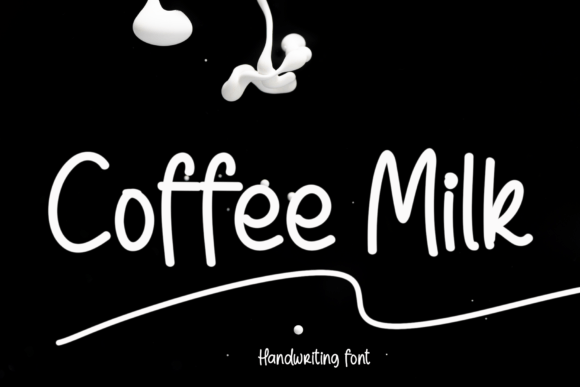
Introducing Coffee Milk Font, the epitome of creativity and elegance in the world of fonts. This remarkable script font, created by Black line, is a true masterpiece that is guaranteed to captivate and inspire.
Coffee Milk Font stands out from the rest with its unparalleled uniqueness and charm. Each letter has been meticulously crafted with a beautiful touch, giving your designs a sense of life and personality. Whether you are designing a logo, creating a brand, or crafting meaningful quotes, this font will effortlessly elevate your creations to new heights.
With its stunning handcrafted design, Coffee Milk Font is the perfect choice for those seeking to make a lasting impression. Its eye-catching appeal will immediately grab the attention of your audience, leaving them mesmerized by the sheer beauty of your typography.
But Coffee Milk Font is not just a pretty face. It is also incredibly versatile, allowing you to unleash your creativity and explore endless possibilities. Its cursive writing style adds a touch of elegance and sophistication to any project, making it ideal for invitations, greeting cards, and personalized gifts.
Indulge in the magic of Coffee Milk Font and witness the transformation of your designs. With its emotional and captivating essence, this font will evoke feelings of warmth, comfort, and nostalgia. It will effortlessly transport your audience to a world of pure imagination, where each word takes on a life of its own.